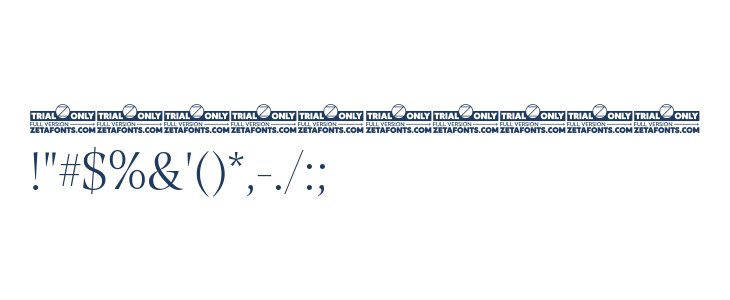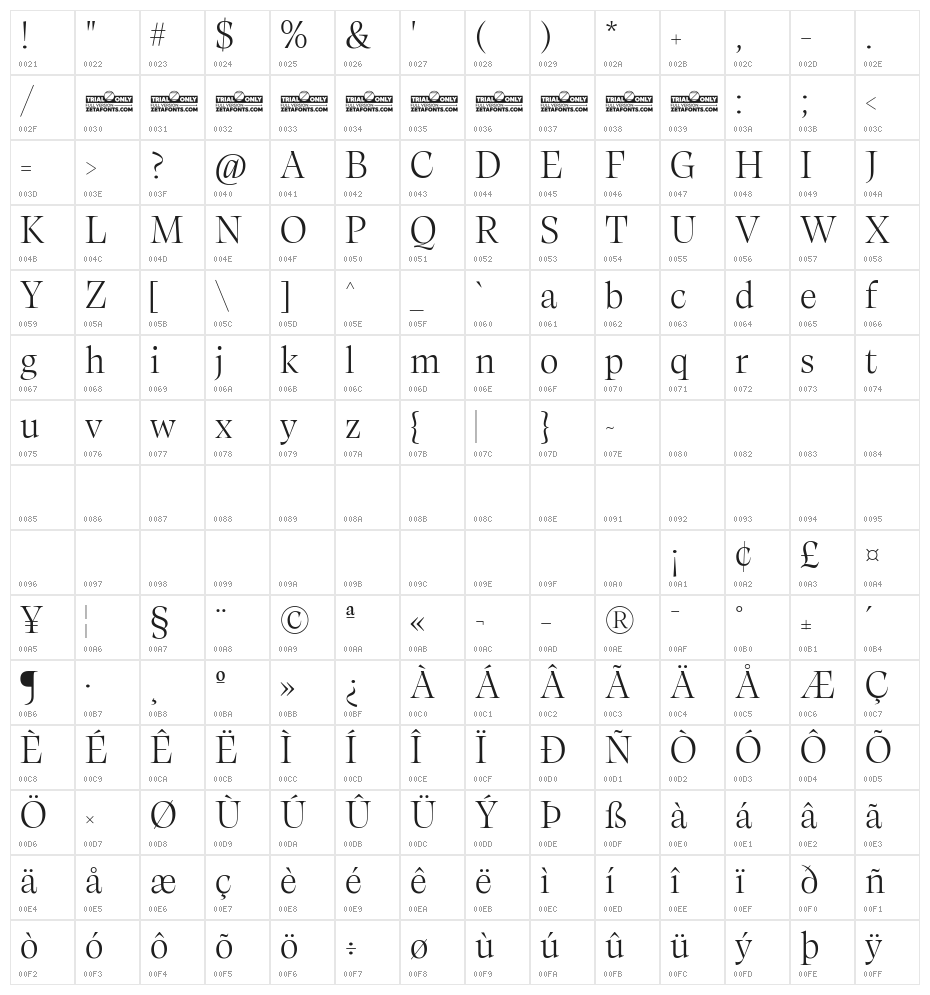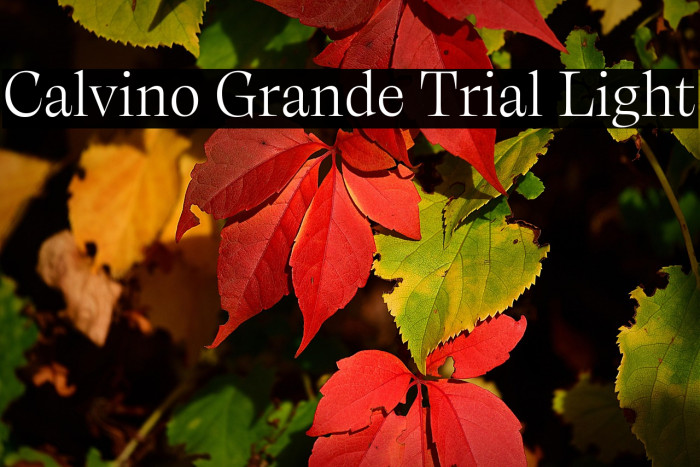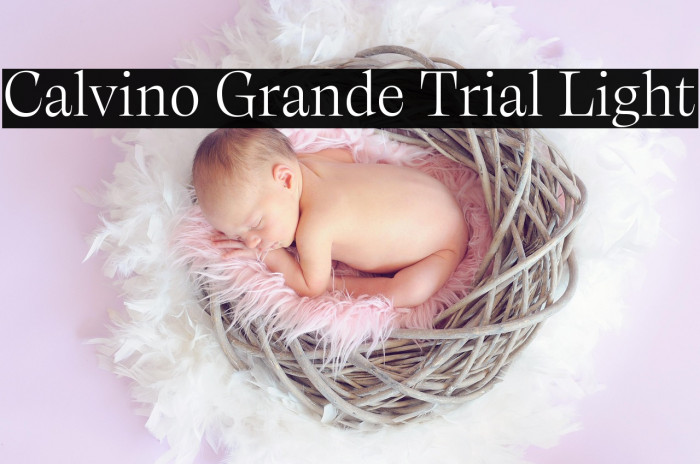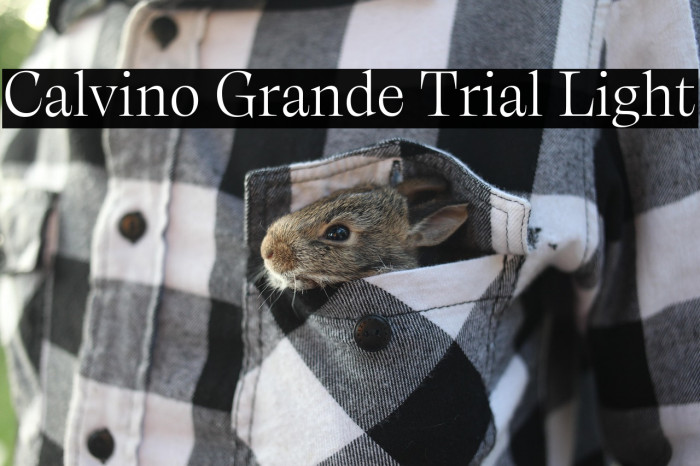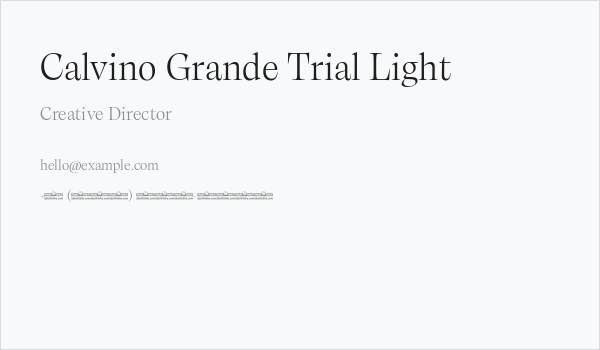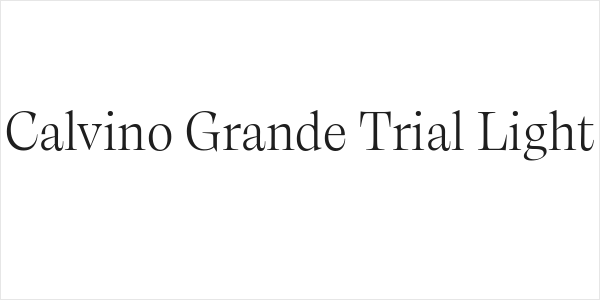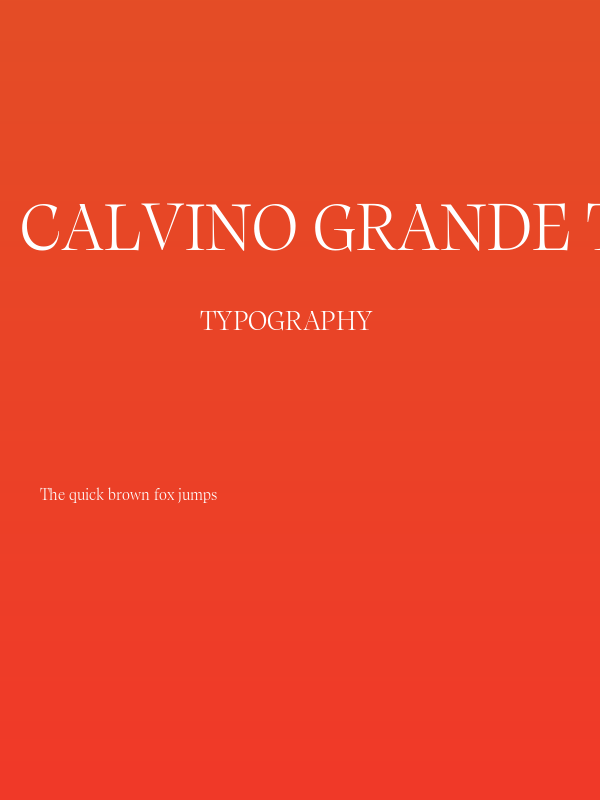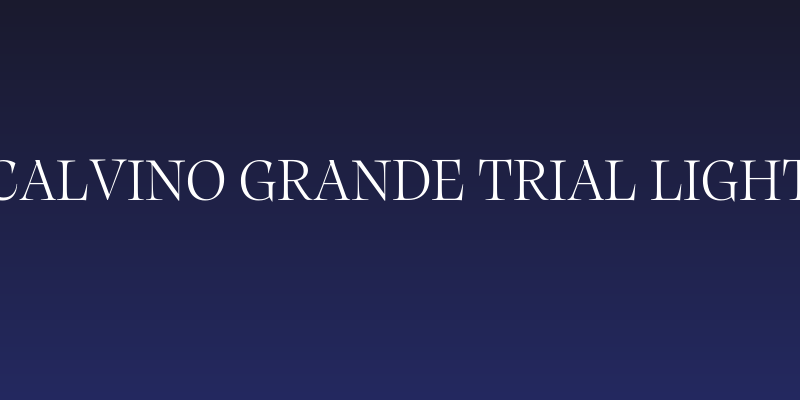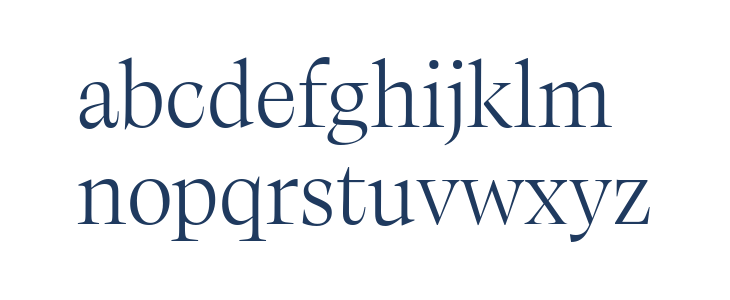
Calvino Grande Trial Light Font
Calvino Grande Trial Light Description
This font exudes a classic elegance with its refined serif design. The characters are well-proportioned, featuring a balanced mix of thick and thin strokes that provide a medium contrast. The serifs are pronounced yet not overly ornate, lending a timeless and sophisticated appearance. The uppercase letters stand tall with a stately presence, while the lowercase characters maintain a harmonious flow. The numerals and special characters are crafted with the same attention to detail, ensuring consistency across the typeface. This font is versatile, suitable for both formal and contemporary applications.
| Proposed Projects | Ideal for editorial design, book covers, formal invitations, and branding projects that require a touch of sophistication. |